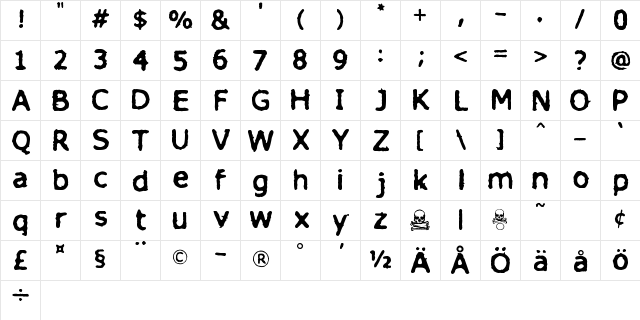
finitimus iungo Regular
| Designer | dorkahanhero |
Design Context for finitimus iungo Typeface
finitimus iungo takes a measured approach to typography — its balanced proportions and neutral character make it a reliable workhorse for both digital and print work.